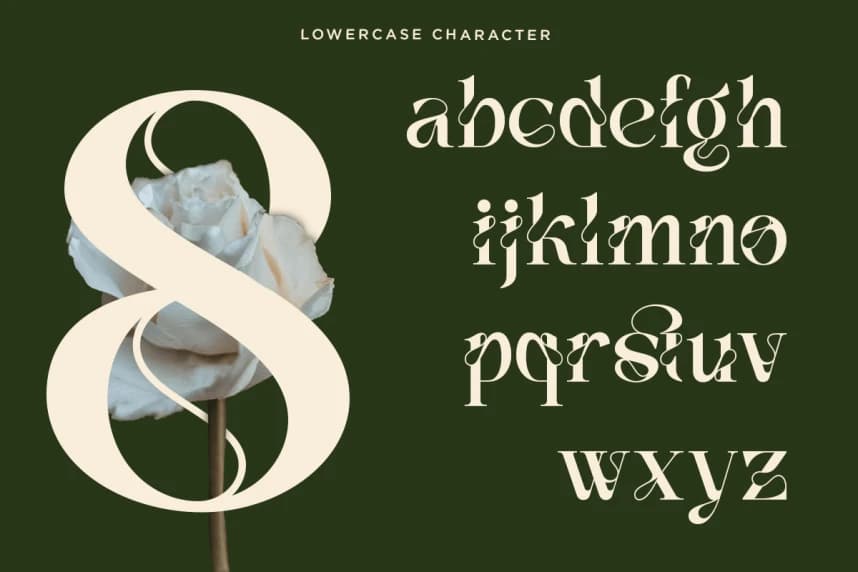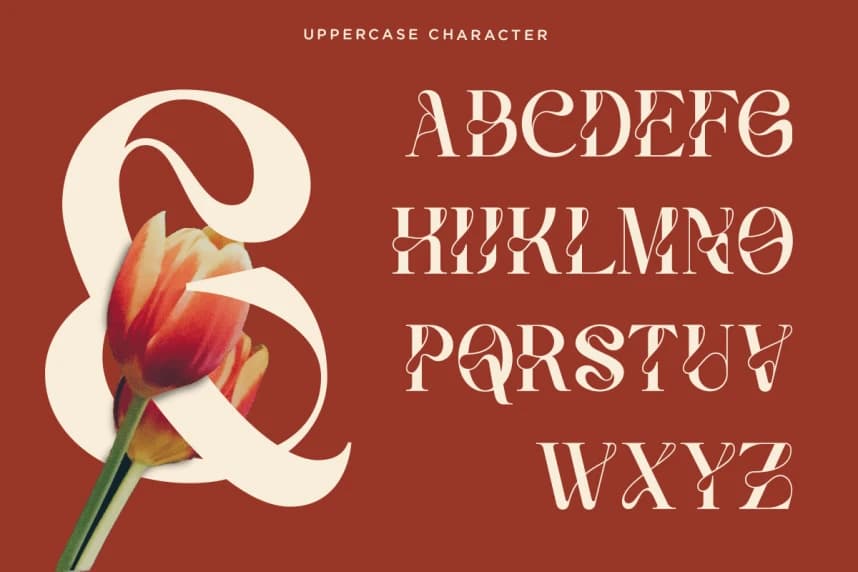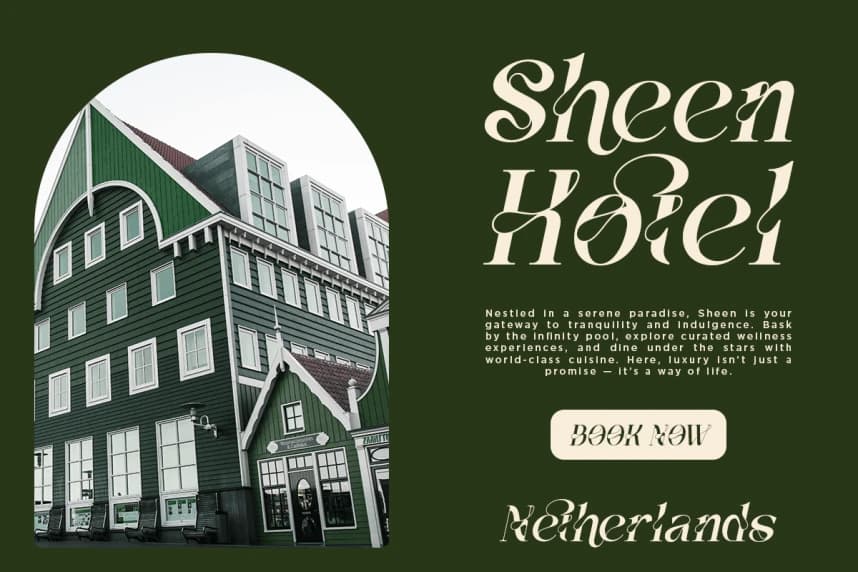
Vanelo DEMO Font
Vanelo DEMO Font is a luxury serif typeface with elegance swirl that blends dramatic curves with minimalist finesse. Tailored for fashion editorials, branding for premium products, and elegant logos, Vanelo carries an aura of mystery and timeless beauty.